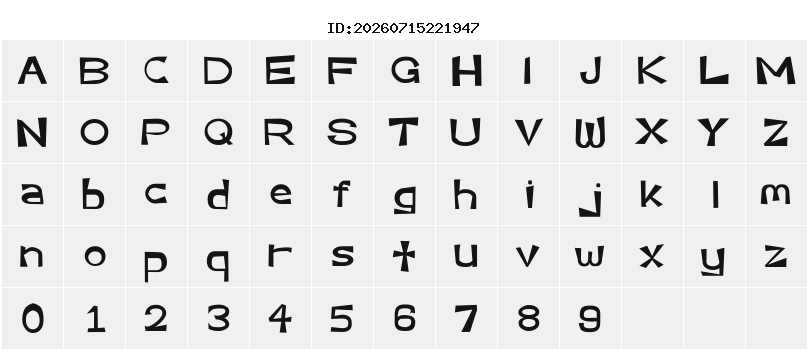
Asshole Preview
• Font Name: Asshole
• Full Font Name: Asshole Basic Sans Serif Font
About Asshole.ttf
Asshole.ttf is a modern, elegant sans-serif font designed for ultimate readability and visual harmony. Perfect for branding, headlines, web design, and print materials.